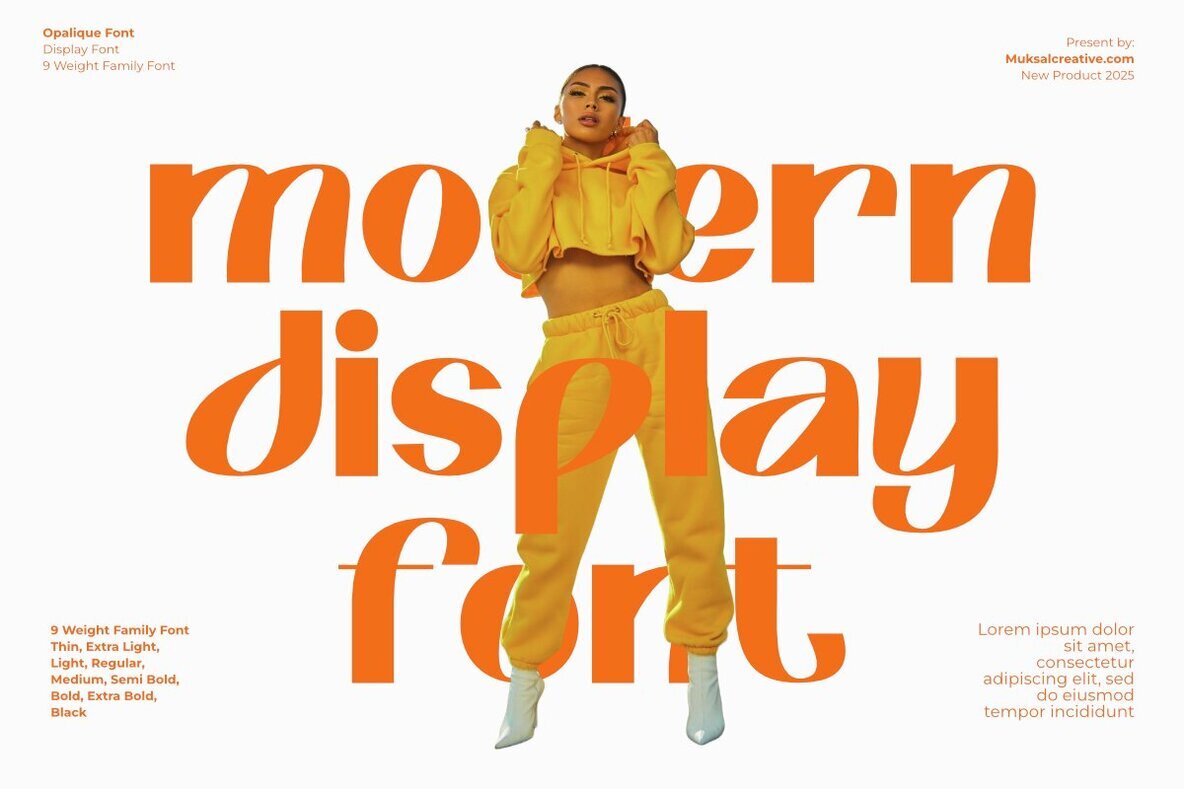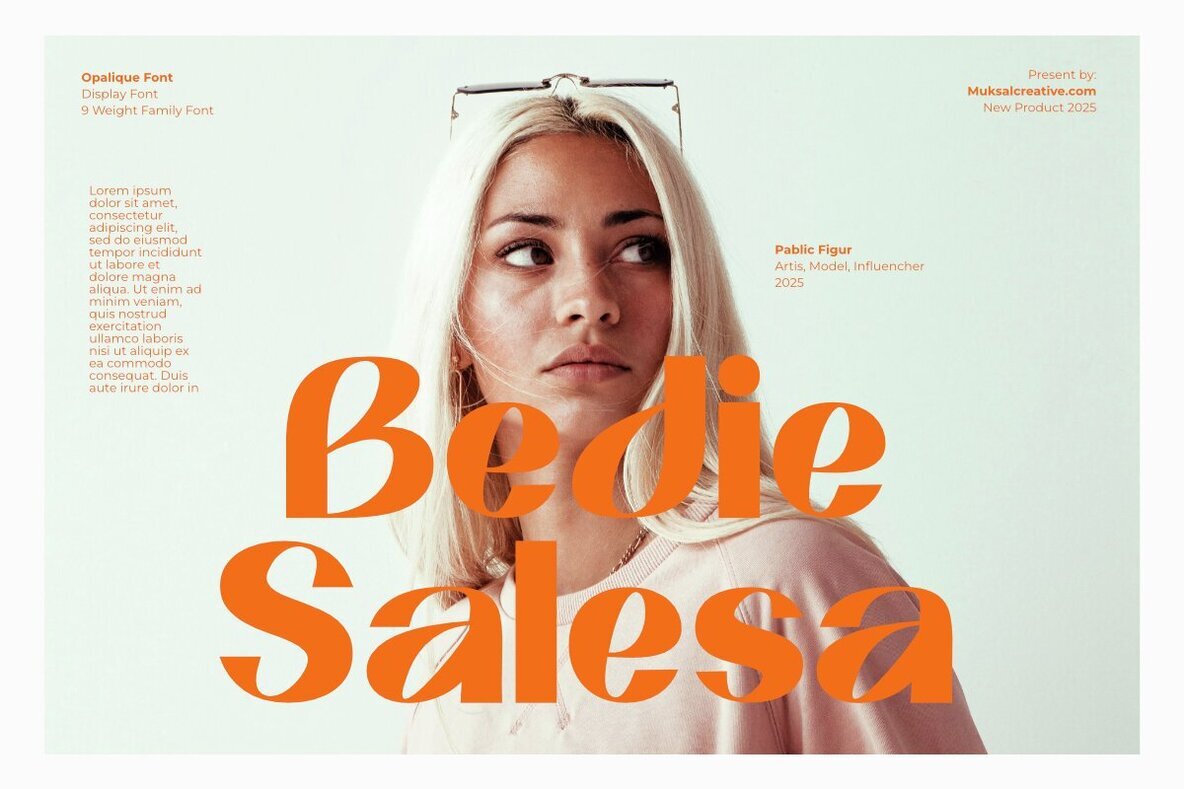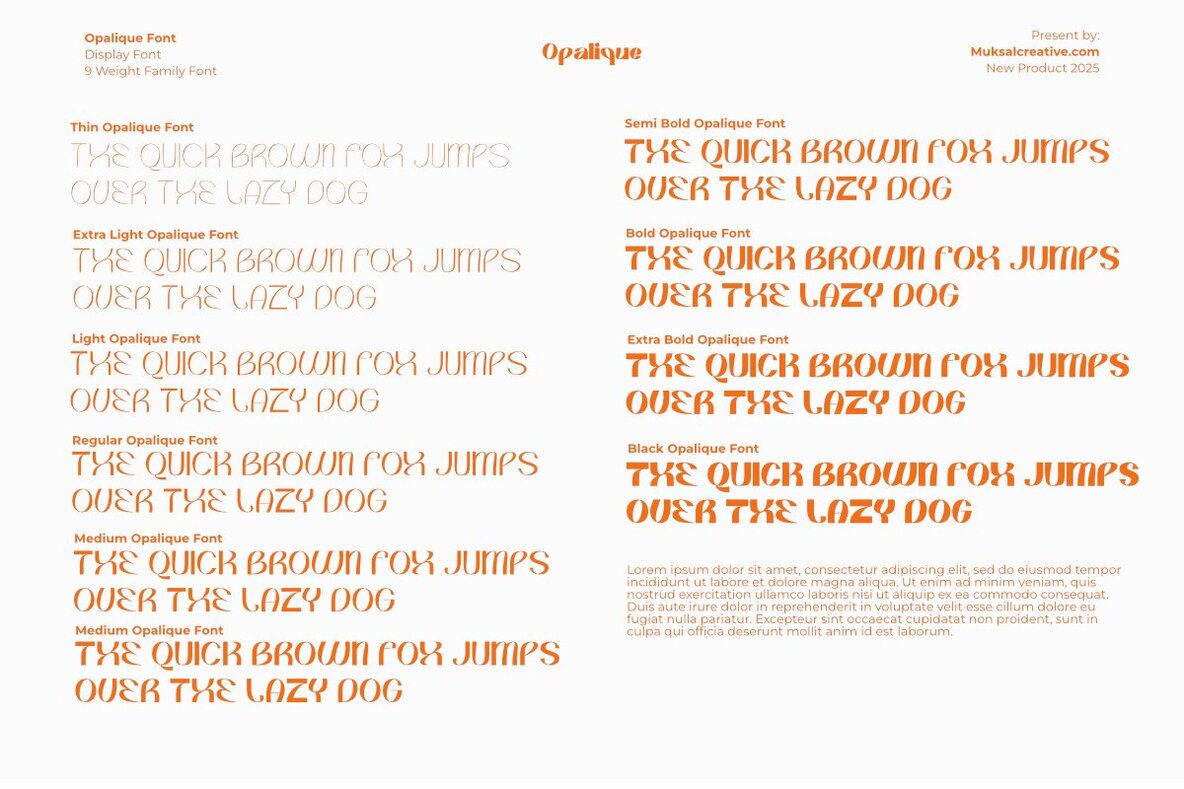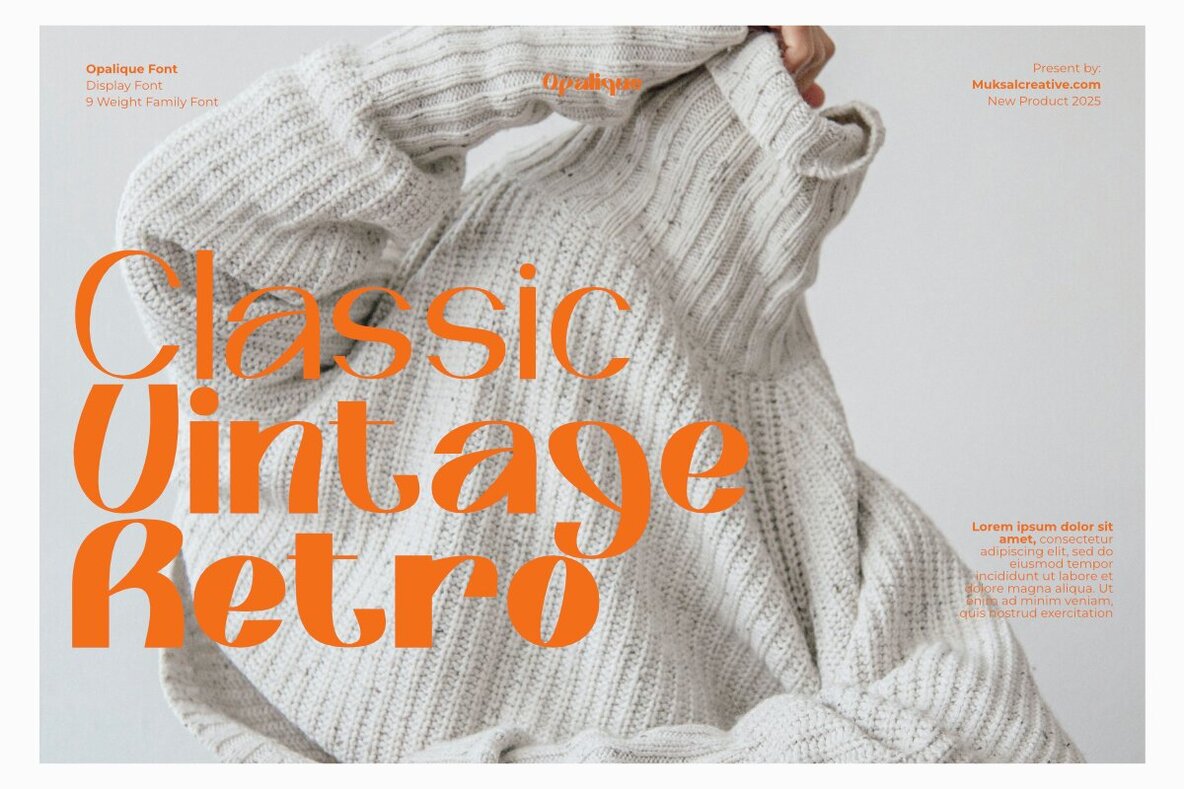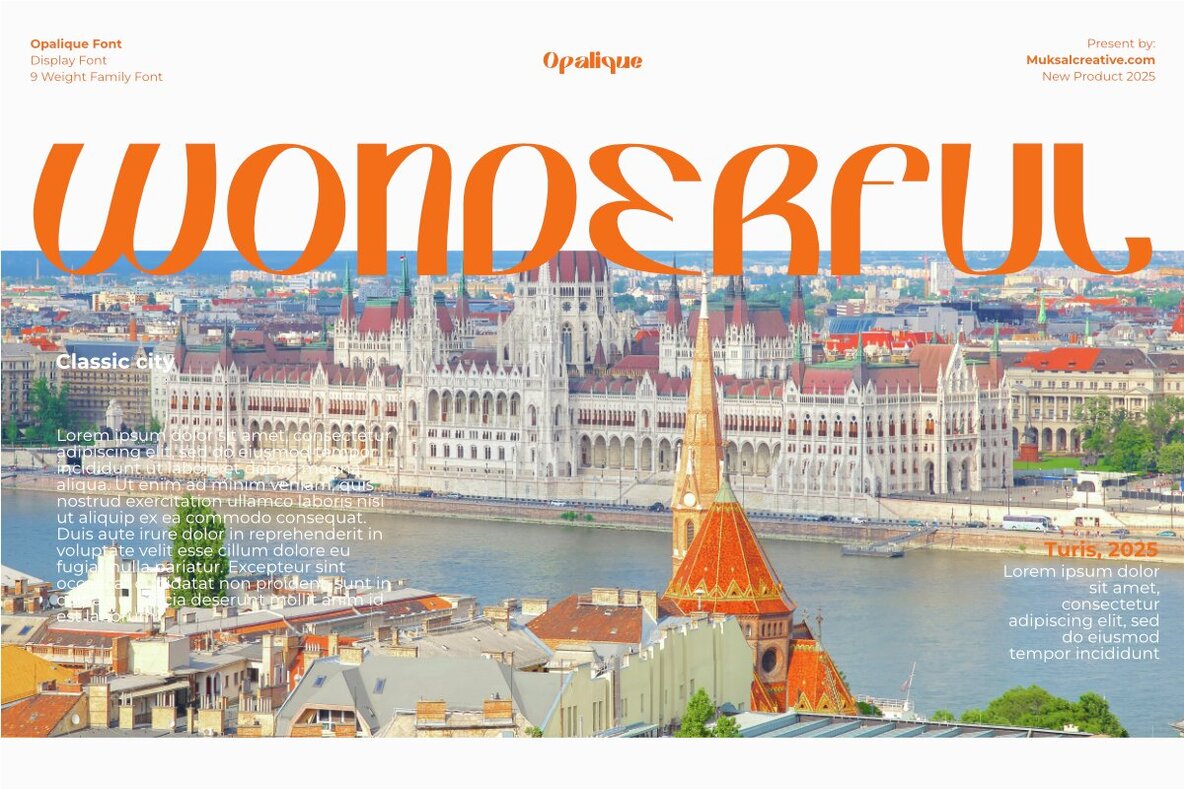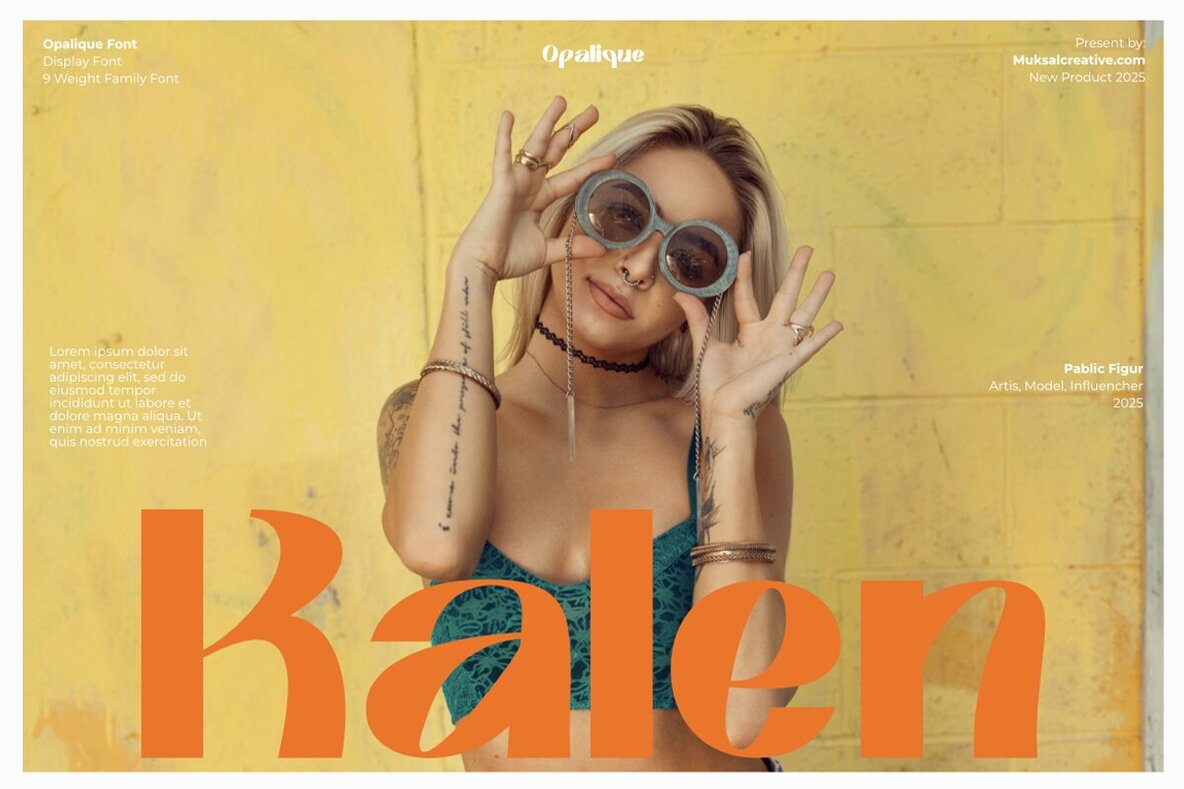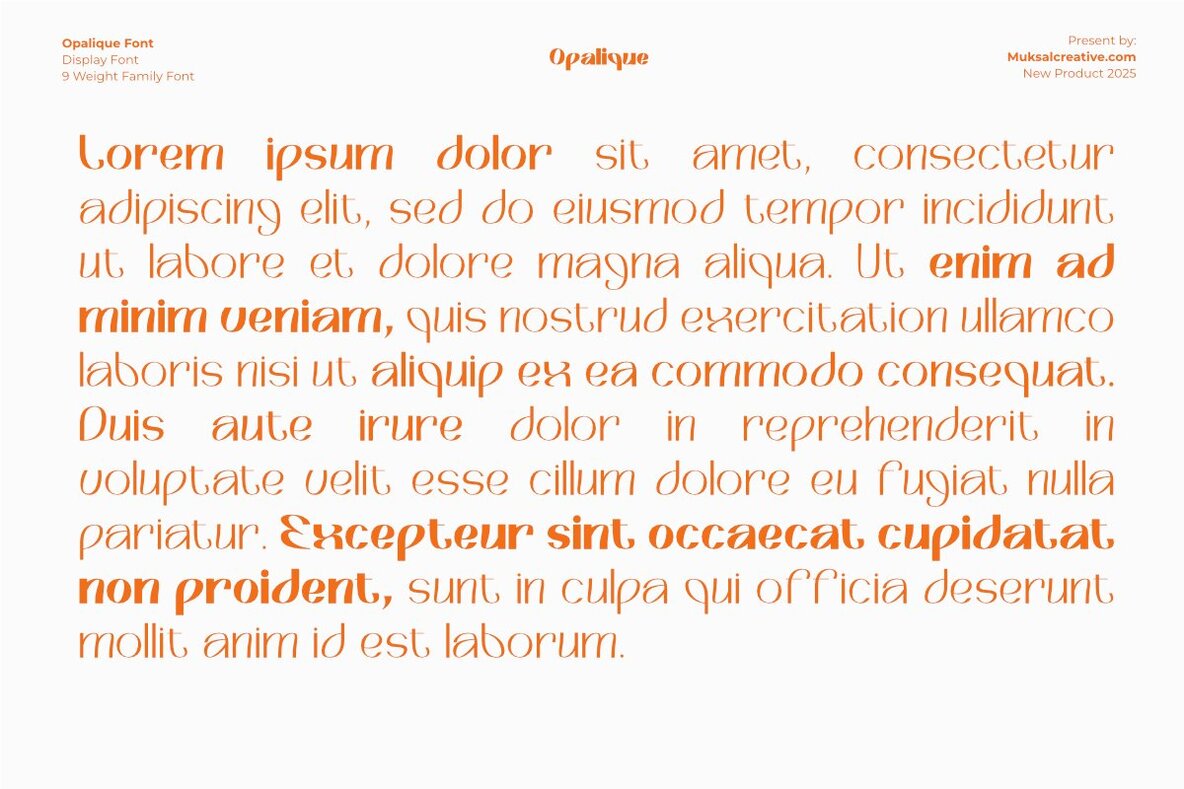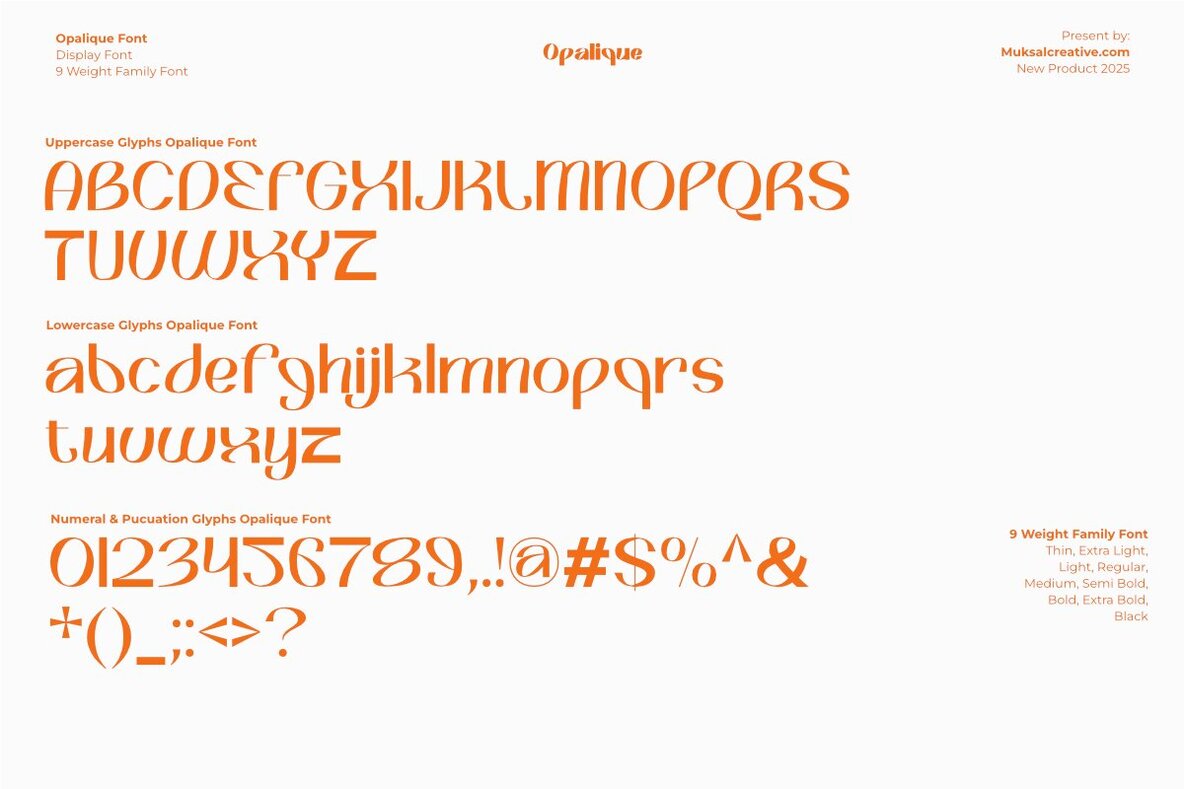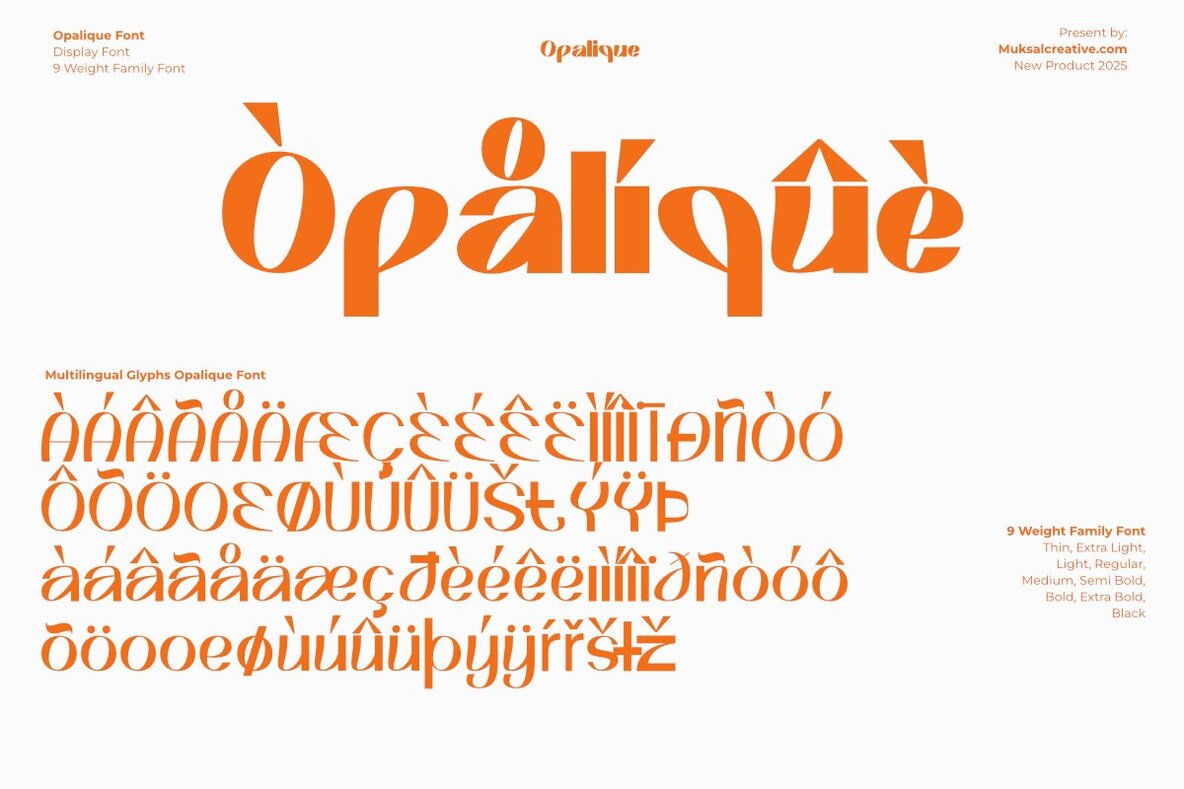
Opalique Font
Opalique is an elegant font family that blends classic sophistication with a modern aesthetic. Inspired by the luminous beauty of opal, this typeface features smooth curves and a unique artistic touch. It comes in nine styles, ranging from the delicate Thin to the bold and powerful Black, offering exceptional versatility for various design needs.
With subtle Art Deco influences and a futuristic flair, Opalique is perfect for luxury branding, editorial design, fashion typography, and other creative projects that demand a sophisticated and exclusive look.